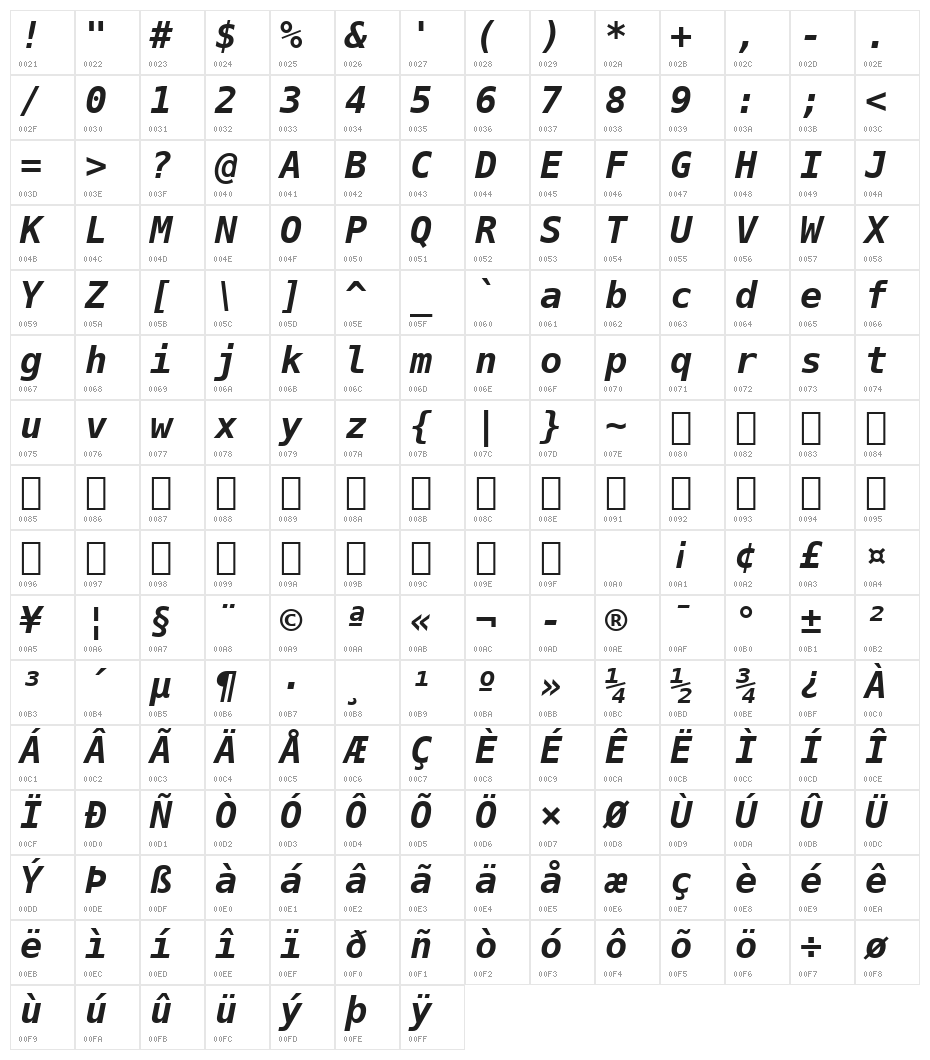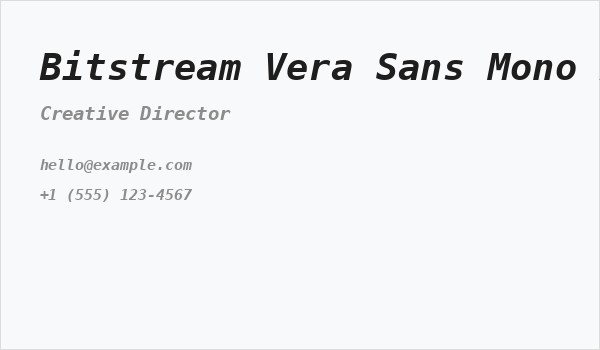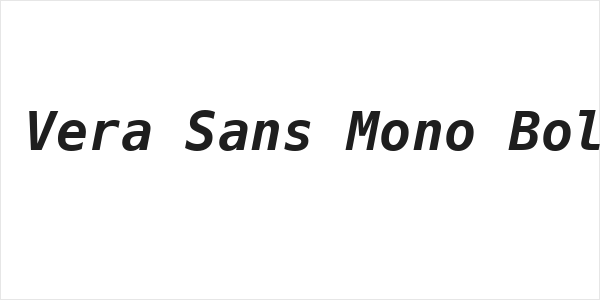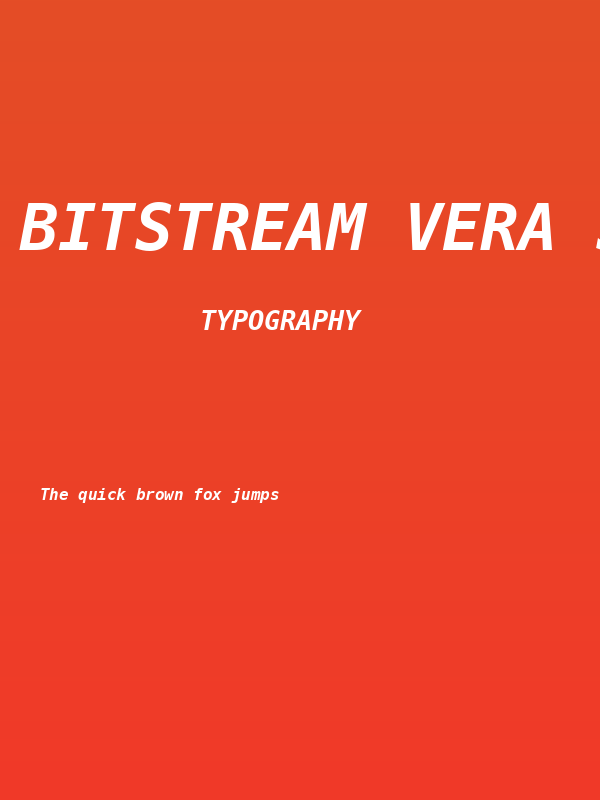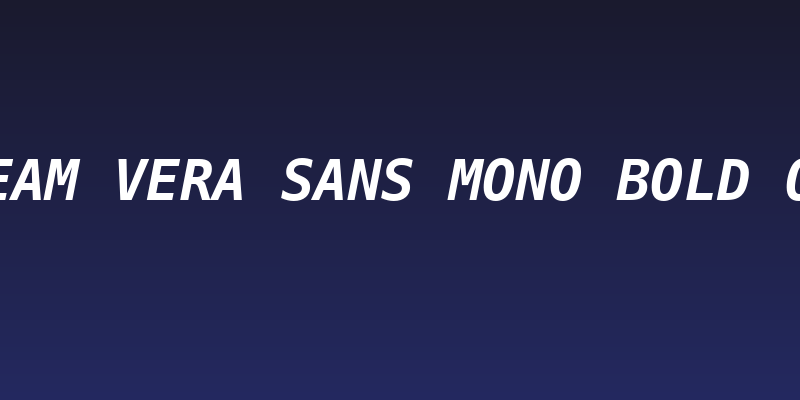
Bitstream Vera Sans Mono Bold Oblique Font
Bitstream Vera Sans Mono Bold Oblique Description
This font features a bold and oblique style, characterized by its monospaced design. Each character occupies the same amount of horizontal space, making it ideal for coding and tabular data. The strokes are consistent in weight, providing a uniform appearance across all characters. The oblique angle adds a dynamic and modern touch, while maintaining readability. The font includes a full set of uppercase and lowercase letters, numerals, and a variety of special characters, ensuring versatility for different applications.
| Use Case | Headlines, Body text, Logos, Coding |
| Proposed Projects | Ideal for coding environments, technical documentation, and any project requiring precise alignment of text. |